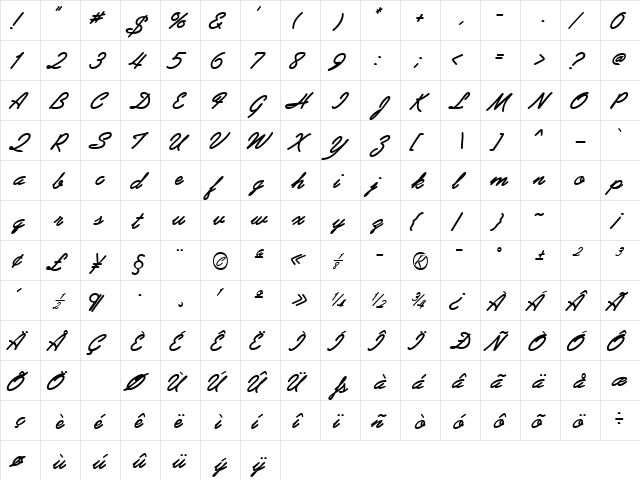
AbrazoScriptSSK Bold Italic Font Preview
AbrazoScriptSSK Bold Italic
AbrazoScriptSSK Bold Italic Font Details
Design Context for AbrazoScriptSSK Typeface
AbrazoScriptSSK flows with the natural rhythm of handwritten lettering, making it ideal for designs that call for warmth and personal expression. Its bold stroke weight gives it real presence on the page.
Font Pairing: Combine AbrazoScriptSSK with a simple geometric sans for maximum contrast — the tension between flowing curves and clean structure is a classic typographic pairing.
Pro Tip: Use AbrazoScriptSSK for short runs of text — names, titles, or taglines. Extended body copy in script faces tires the eye quickly.